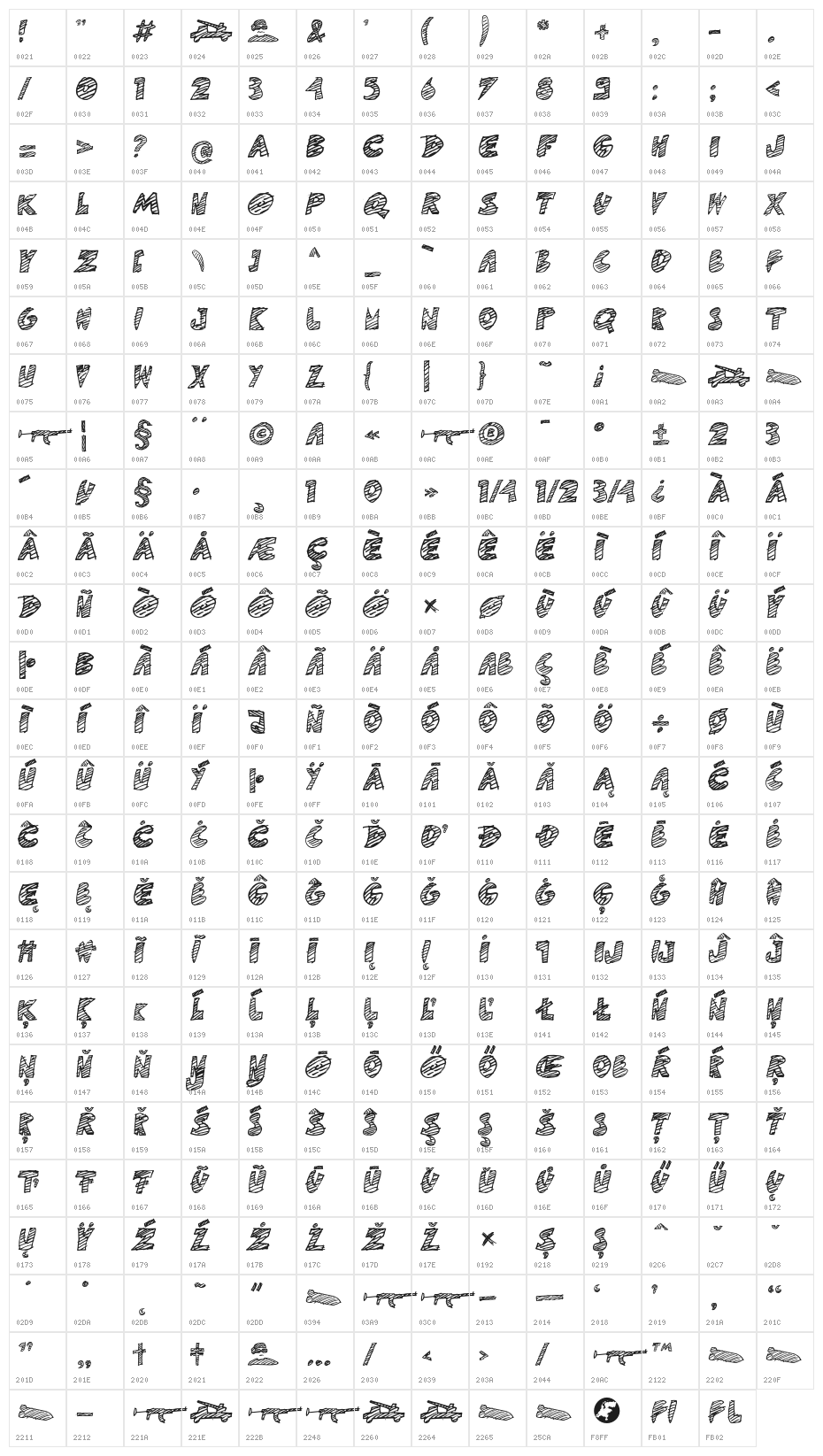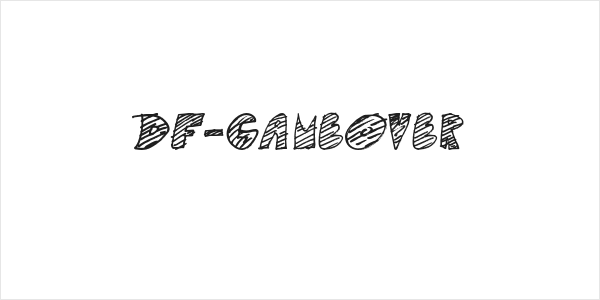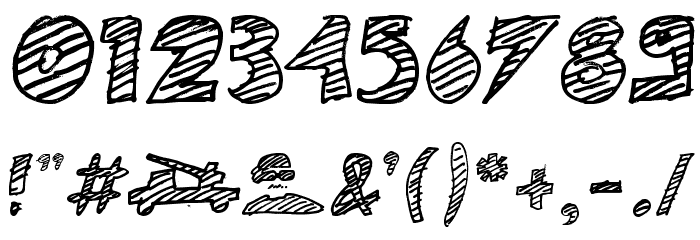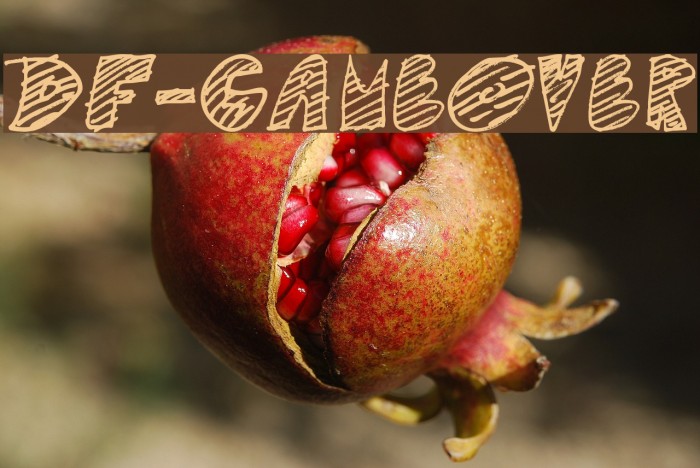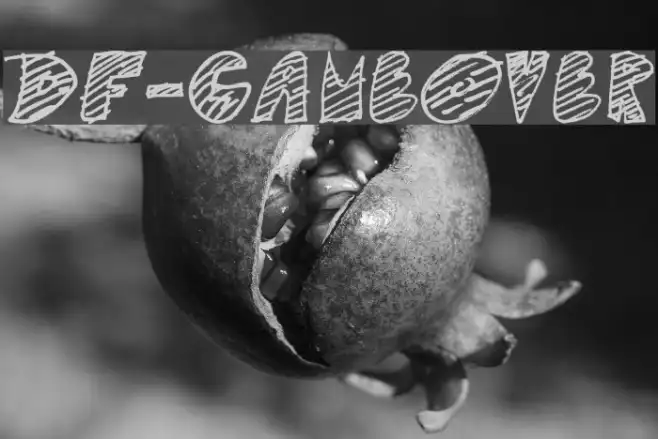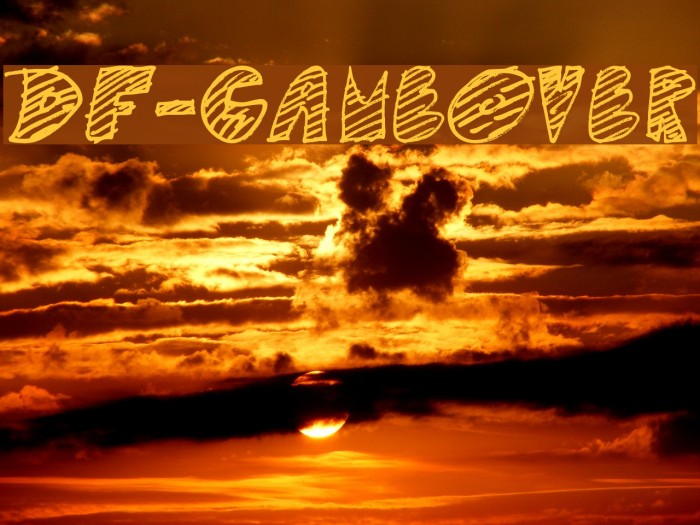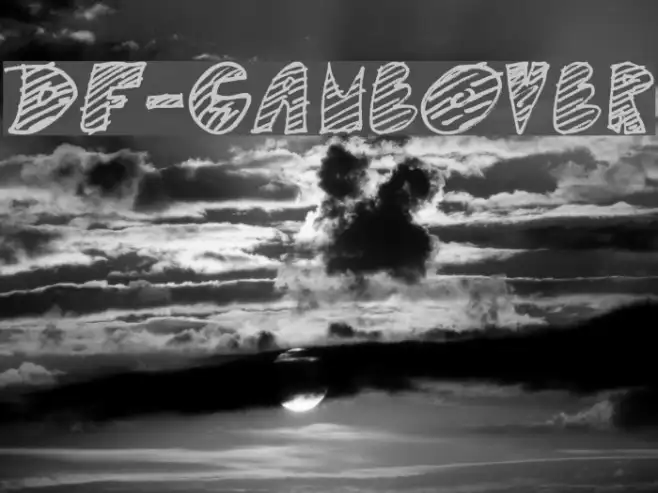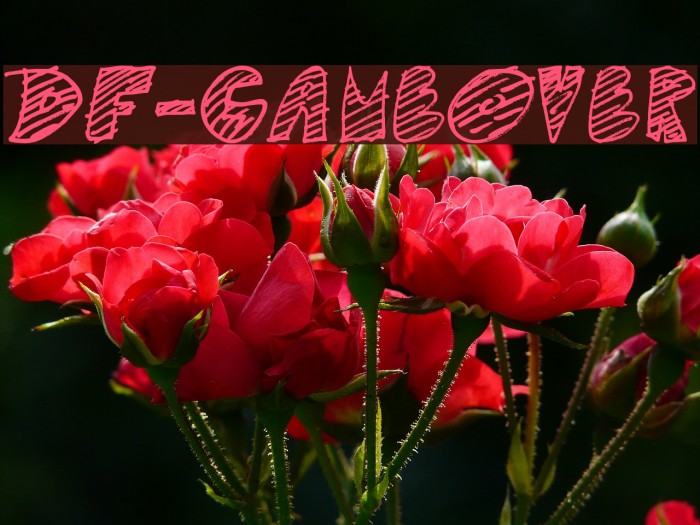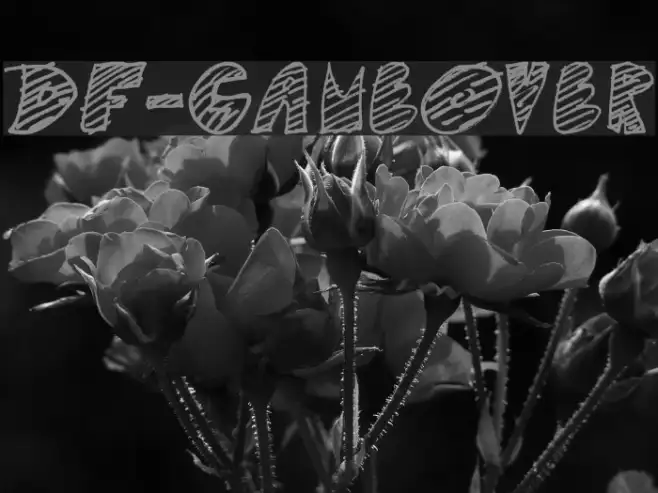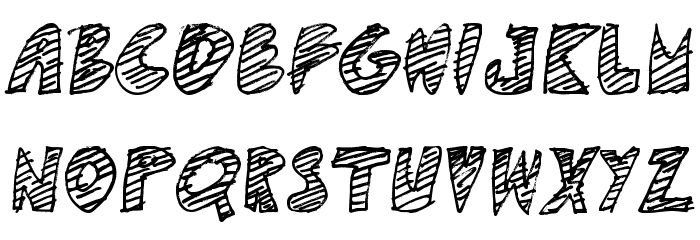
DF-GameOver Font
DF-GameOver Description
This font features a bold, playful design with a hand-drawn, sketch-like appearance. Each character is filled with diagonal lines, giving it a textured, dynamic look. The letters are slightly irregular, adding to the casual and informal style. The uppercase and lowercase letters maintain a consistent style, with the same textured fill and bold outlines. The numbers and special characters follow the same design principles, ensuring a cohesive look across all characters. This font is ideal for projects that require a fun, energetic vibe.
| Overall Style | Playful, Hand-drawn, Sketch-like |
| Proposed Projects | Ideal for comic books, children's books, playful branding, and video game graphics. |